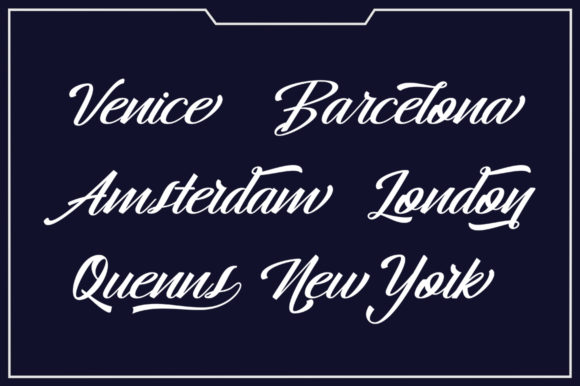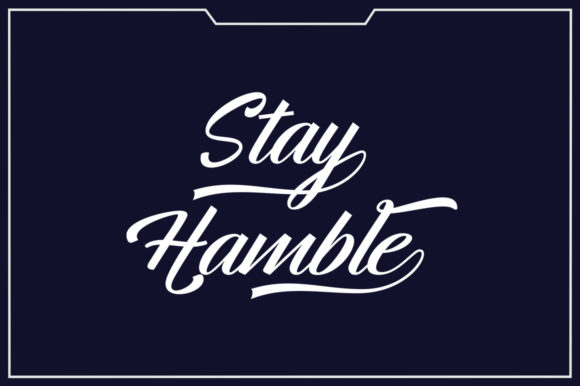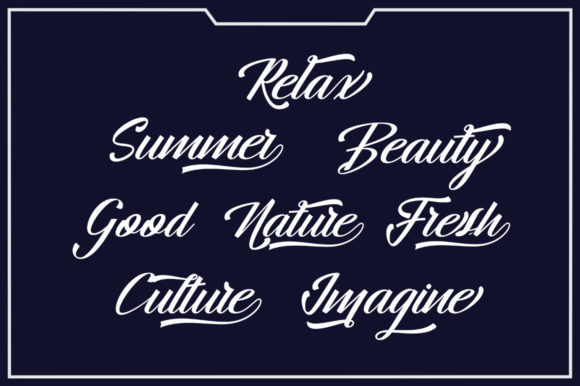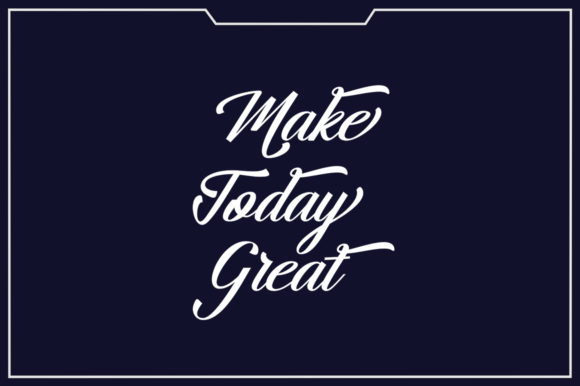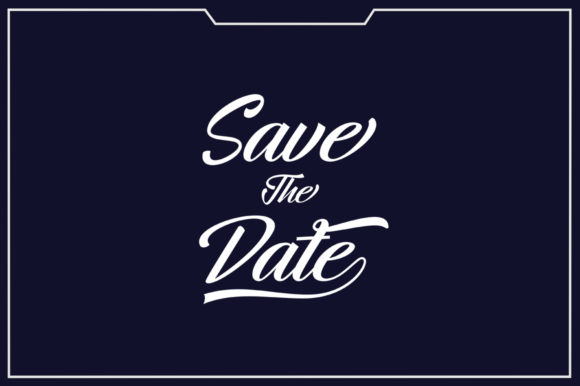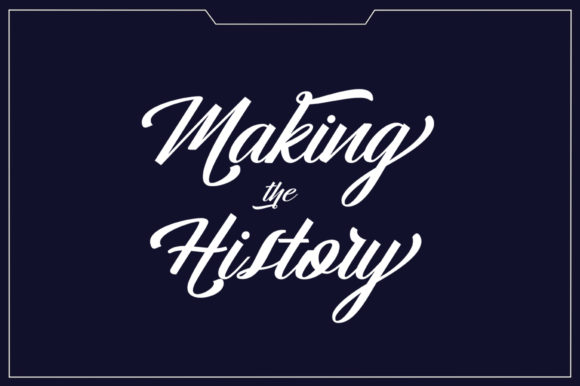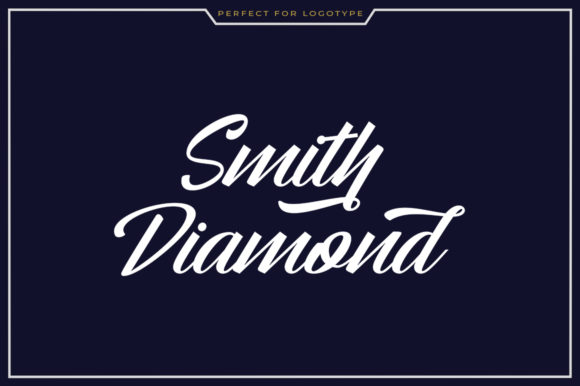
Hangberd Script Font
About Hangberd Script Font
The Hangberd is a modern script font. It has a harmonic style which creates amazing calligraphy designs.
It can be used for various purposes such as logos, wedding invitations, titles, signatures, t-shirts, letterheads, signboards, labels, posters, and much more!